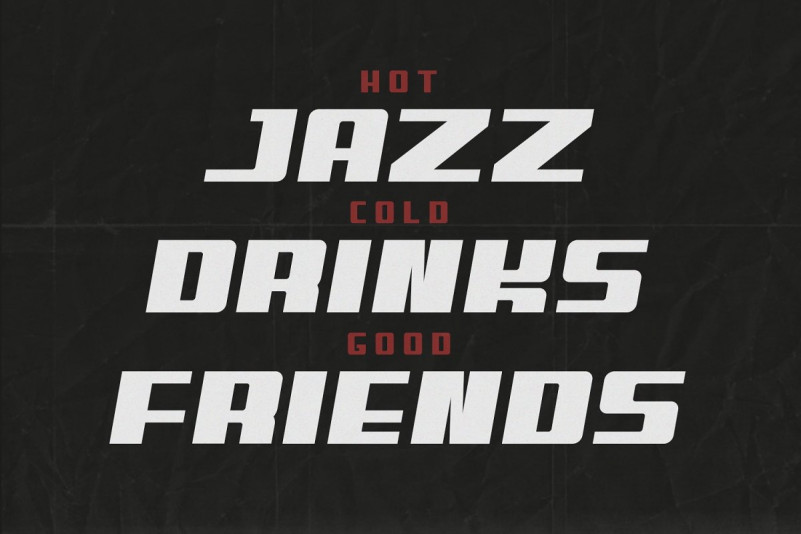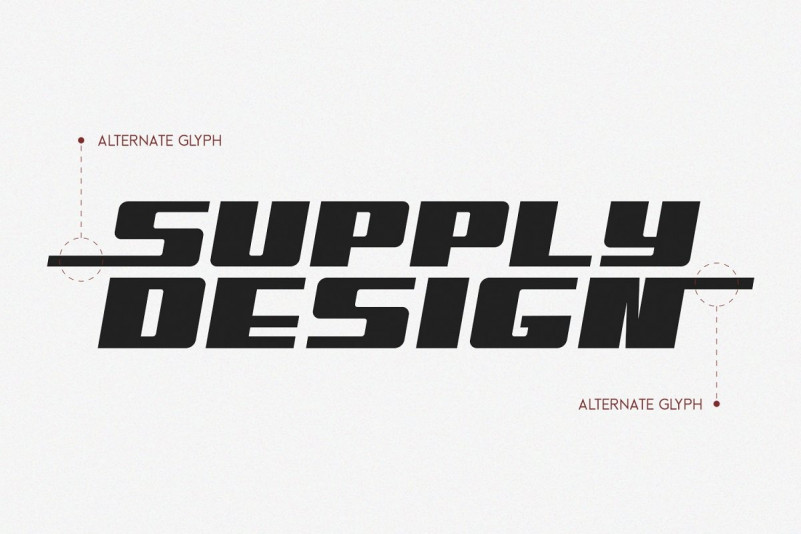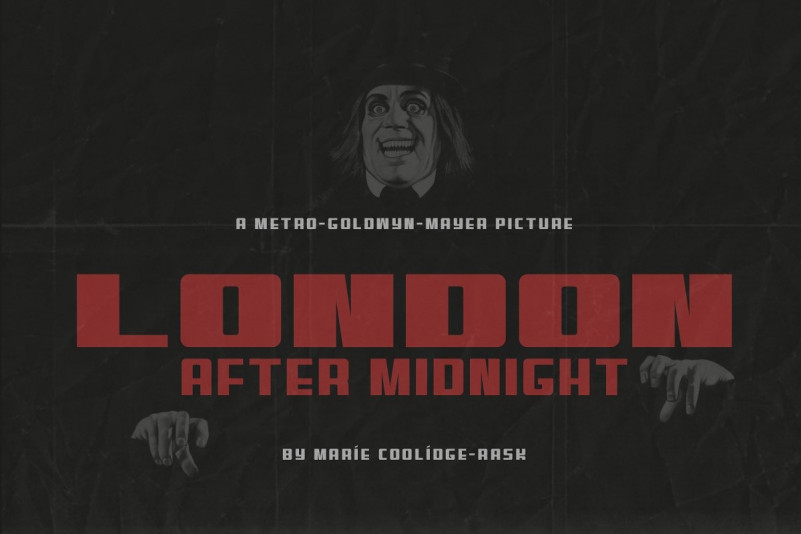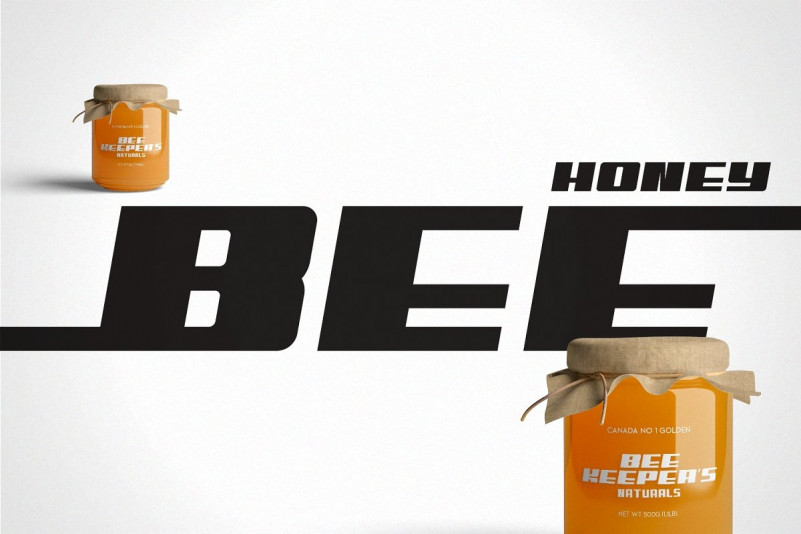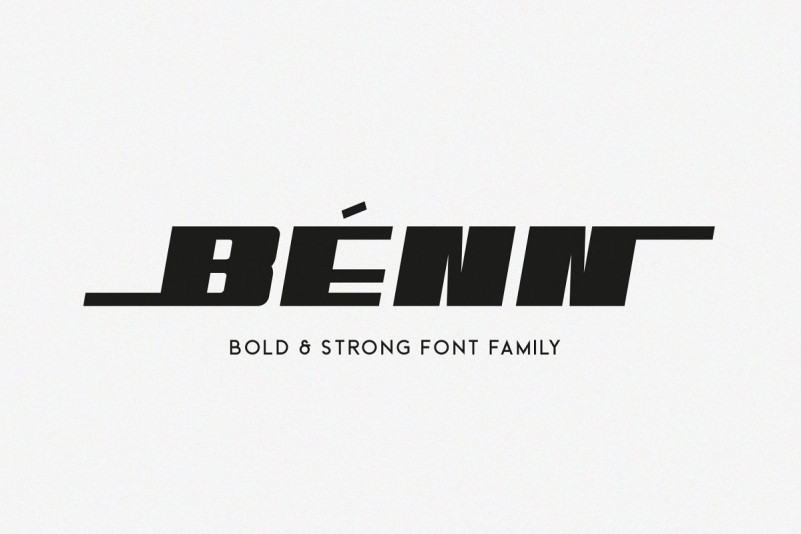
Benn Font Family
Say Hello Guy’s. Thank you for looking Benn Sans Serif Font Family. This is a clean modern sans serif that’s on the heavier side. Use this bold chunky font for creating impactful titles and headlines. It’s designed and shared by Factory738. Inspired by a car shape, it’s sturdy uncompromising style is felt through the controlled letterforms and fluid touches. A balance of hard lines and smooth curves. It’s works great in any branding, poster, logos, magazines, films. The different weights give you full range to explore a whole host of applications, while the alternate glyphs give a fluid and modern feel to any projects.